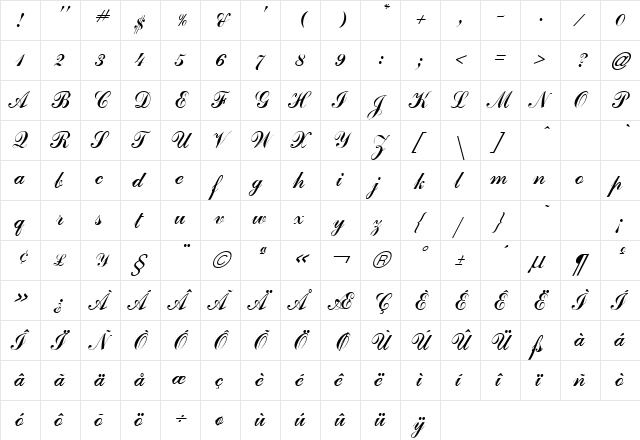
GE Journeyman Script Italic
Design Context for GE Journeyman Script Typeface
GE Journeyman Script flows with the natural rhythm of handwritten lettering, making it ideal for designs that call for warmth and personal expression.
Font Pairing: Combine GE Journeyman Script with a simple geometric sans for maximum contrast — the tension between flowing curves and clean structure is a classic typographic pairing.
Pro Tip: Pair GE Journeyman Script with a clean sans-serif for supporting text. The contrast between fluid script and geometric structure creates an elegant typographic hierarchy.